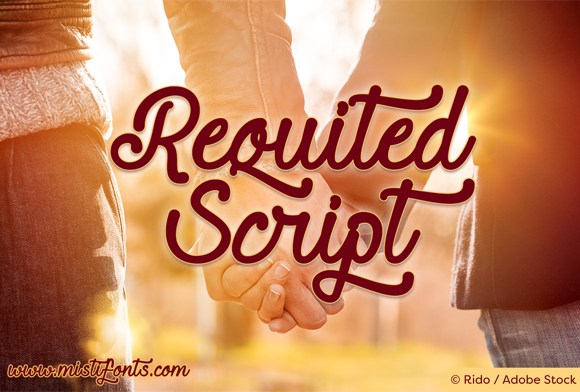
Requited Script Font
About Requited Script Font
Requited Script is an elegant, calligraphy font that is perfect for your design and craft projects!
244 glyphs (including uppercase, lowercase, numbers, and punctuation)
Lots of language support (covers most European languages)